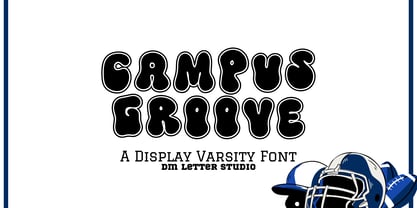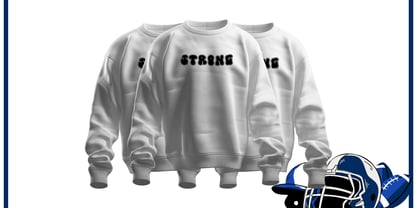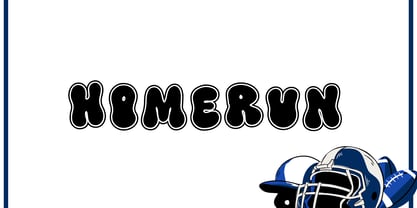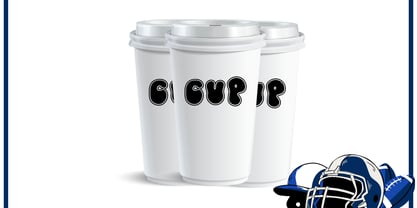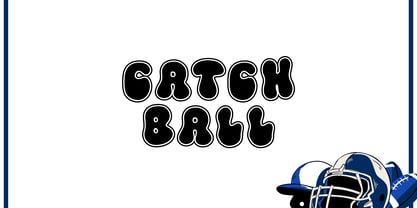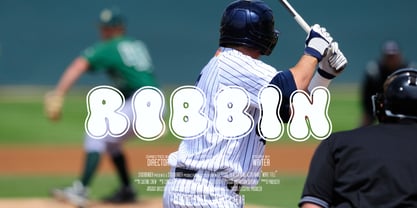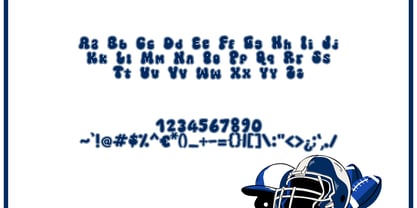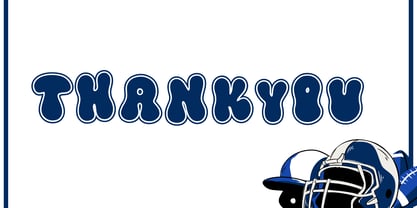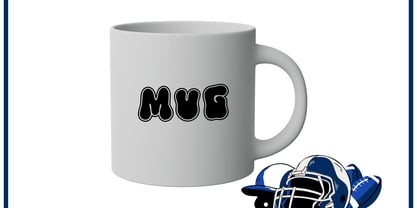
Campus Groove
by DM Studio
The Campus Groove Font Family was designed by Dimas Prasetyo and published by DM Studio. Campus Groove contains 1 styles. More about this family
Meet Campus Groove Font blends varsity confidence with a smooth, feel-good rhythm. Letters are bold and upright, yet rounded enough to feel friendly. Because spacing is tuned for headlines, words snap into place on shirts, banners, stickers, and thumbnails. Use it for spirit wear, clubs, pep rallies, game-day posts, and creator brands that want school energy with modern flair. Where Campus Groove Font shines Set punchy phrases like “Game Day,” “Campus Crew,” or city initials. Then add double strokes, stitch edges, or soft shadows to echo real varsity patches. Since the forms are sturdy, vinyl cuts and screen prints stay crisp on jerseys, caps, and hoodies. As a result, you can launch full sets for teams, camps, and tournaments with less editing. Plus, the rounded rhythm keeps titles clear on mobile and small labels. Fast setup, bold results Install the files and start designing right away in Canva, Photoshop, and Illustrator. Clean paths keep DTG prints, sublimation, and embroidery mockups sharp. Consequently, jerseys, bottles, banners, and thumbnails share one consistent look. Next, try color stories in navy–gold, cherry–cream, forest–white, or lilac–lime for playful school spirit. Finally, build a reusable template—headline, outline, and shadow—so new SKUs roll out fast. Design tips for a groovy varsity vibe Keep copy short and let Campus Groove Font lead. Pair big headlines with a clean geometric sans for captions and roster details. Meanwhile, sticker borders, felt textures, and light grain add depth without clutter. Because the shapes are friendly, candy gradients and puffy-print effects work beautifully. However, avoid long sentences on tiny tags. Names, numbers, and punchy phrases hit hardest. What you get inside Uppercase, lowercase, numbers, punctuation Multilingual Latin support Optimized outlines for vinyl, DTG, and print Why creators choose Campus Groove Font You want school spirit with modern charm. Campus Groove Font delivers instant impact, fast workflows, and clean results from stickers to sideline banners. Therefore, one typeface can anchor your team drops, kid-friendly collections, and seasonal spirit gear.
Designers: Dimas Prasetyo
Foundry: DM Studio